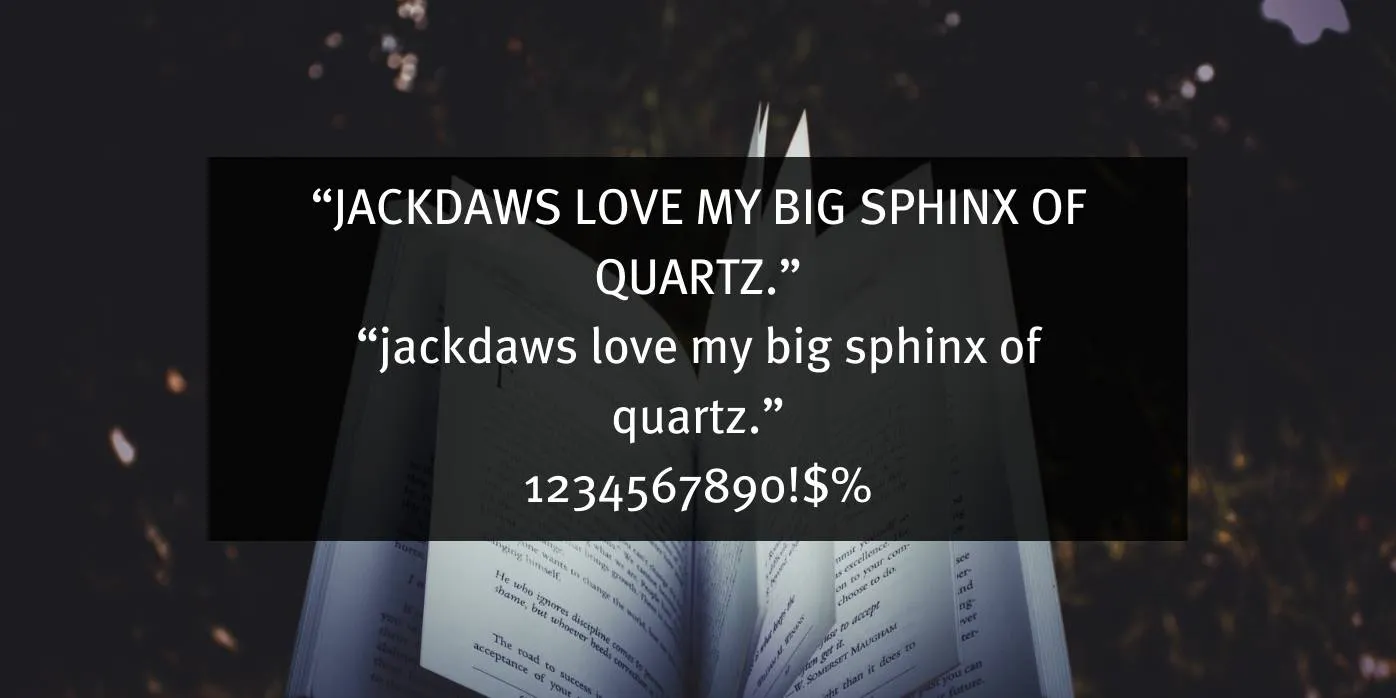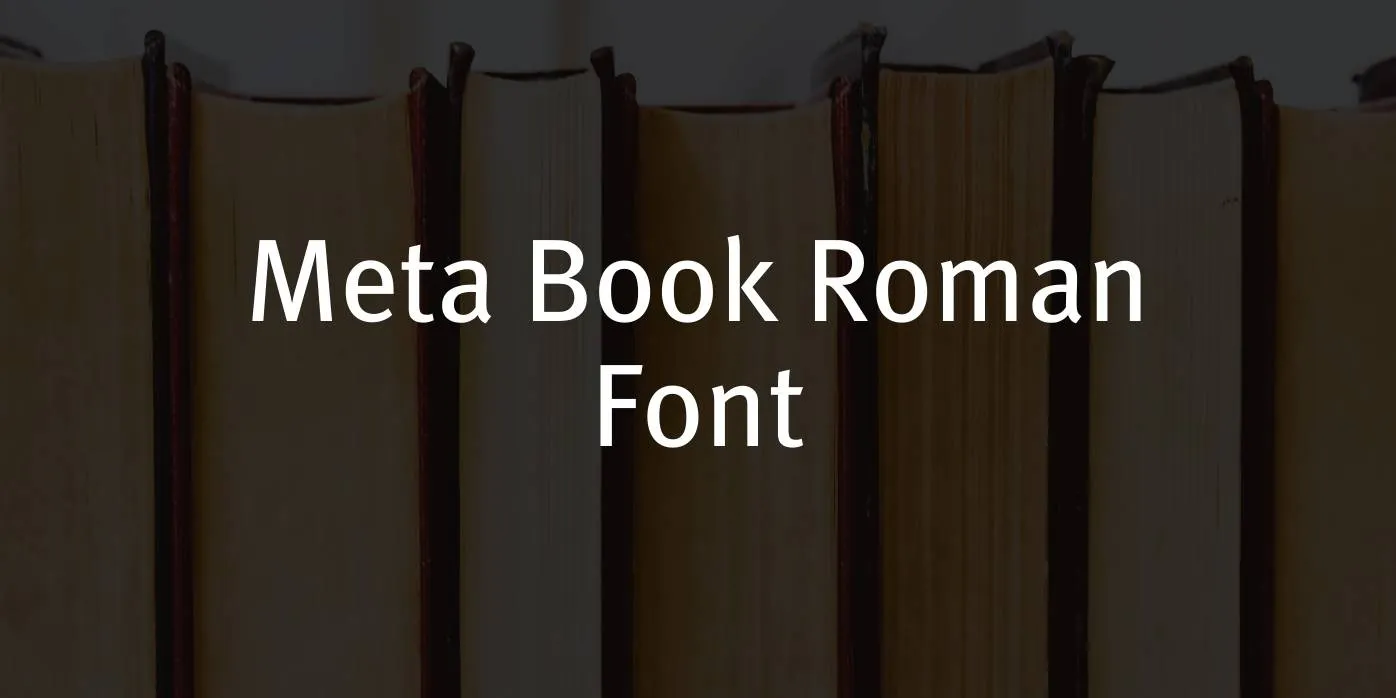
Meta Book Roman Font
Meta Book Roman Font belongs to the sans serif family. Erik Spiekermann is the designer of this family. The main aim of designing this family was to create a screen-optimized font that is quite similar to his Meta family. It supports Latin, Cyrillic, and Greek languages.
The result is a clean and modern font that is still highly readable. The generator tool of this family is well suitable for various projects.